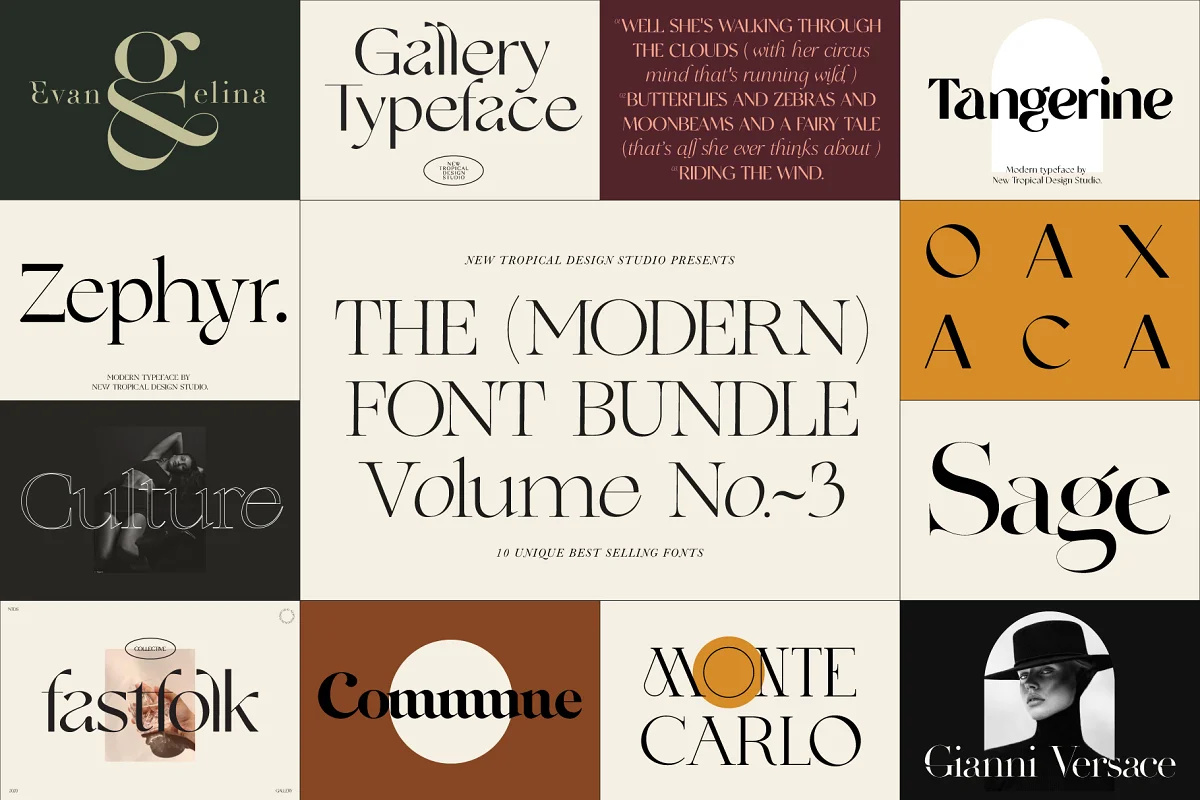
The Modern Font Bundle Vol.3
About the Product Here it is! My 3rd font bundle and my best to date. What makes this font bundle different from all the other bundles out there is that it is stacked with unique quality fonts. There are no boring filler fonts, just 10 standout modern typefaces. So, heres the deal: 10 x $14 fonts for $29. A years work for me for only $29. Every font includes multilingual support. We have Sage & Evangelina that are high contrast fashion fonts. Monte~Carlo which is a nu-deco font. Gallery, Zephyr & Culture are modern new age serifs. Tangerine is a unique 70s font. Analogue & Classico are chic sans serifs. Commune is a modern take on a blackletter serif. Enjoy!